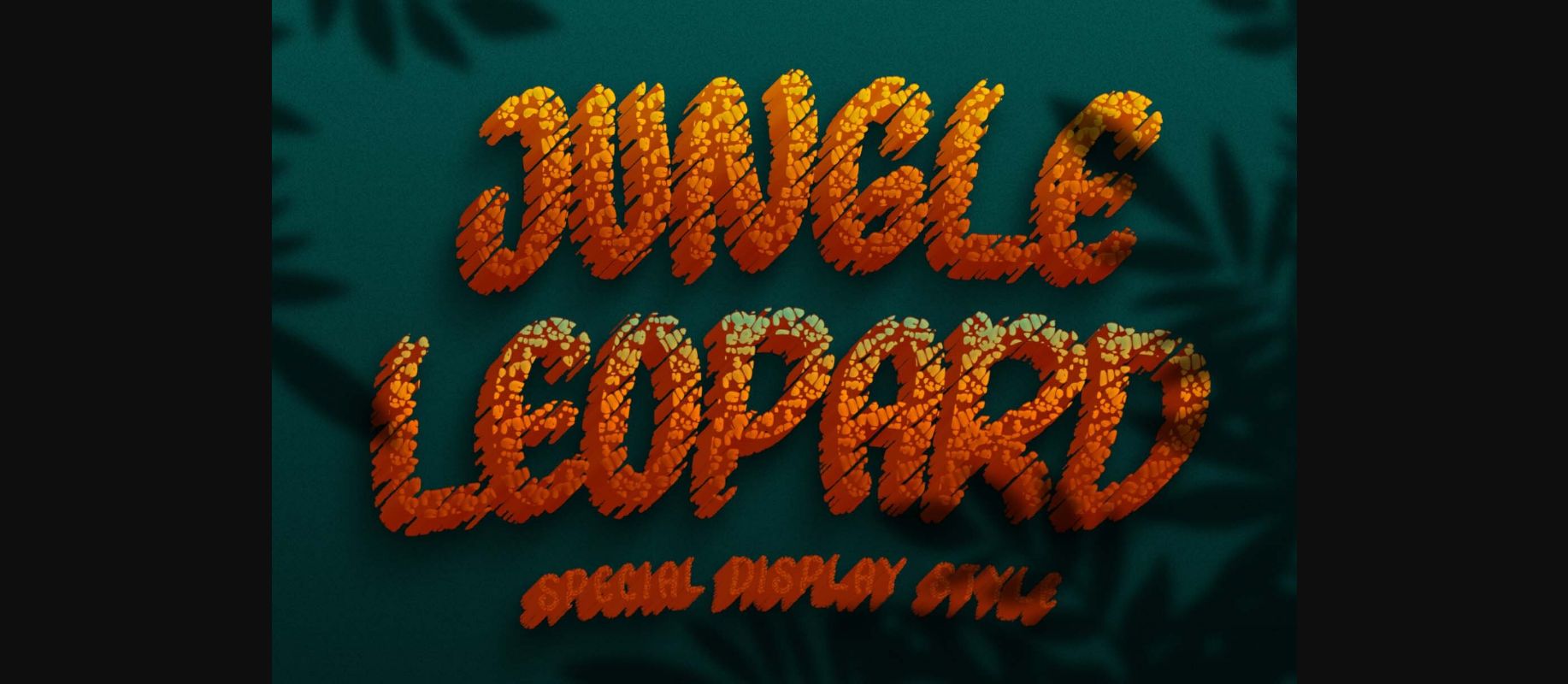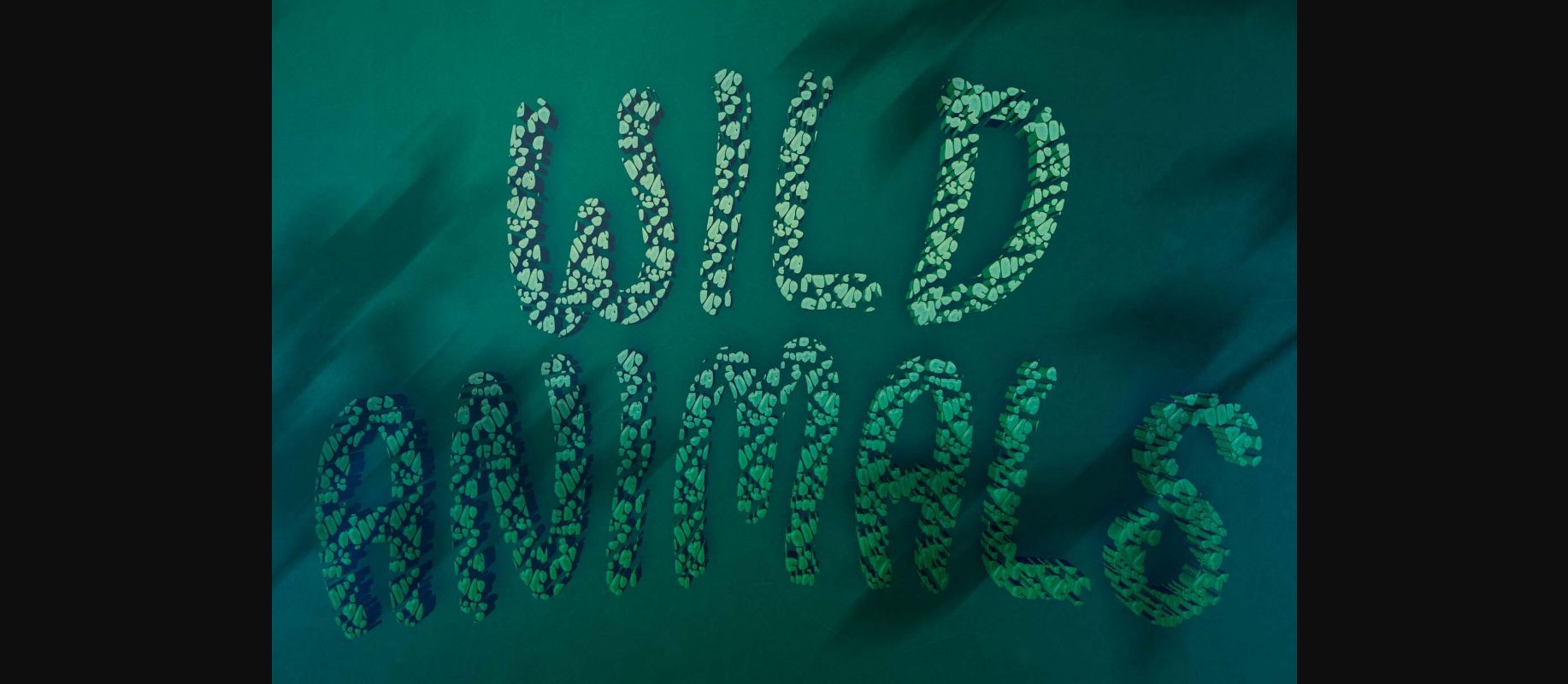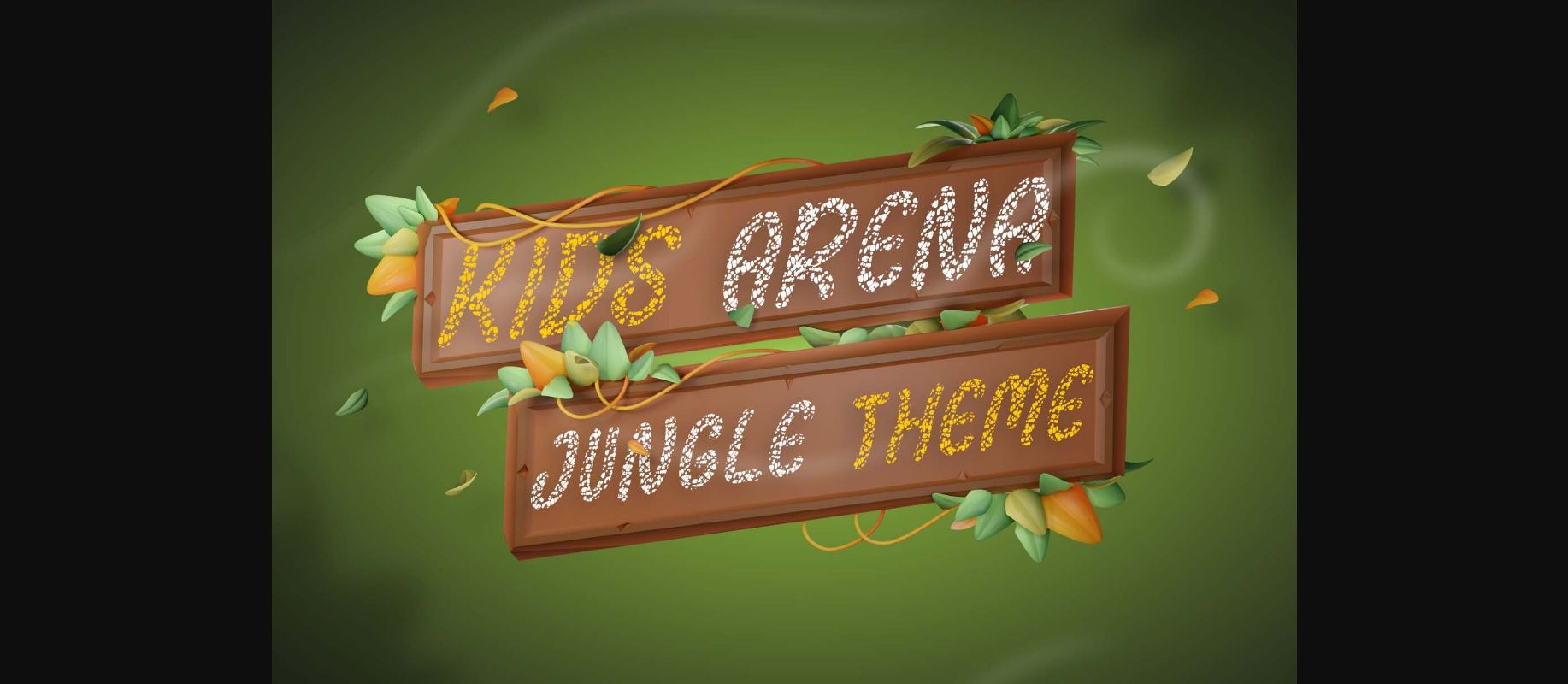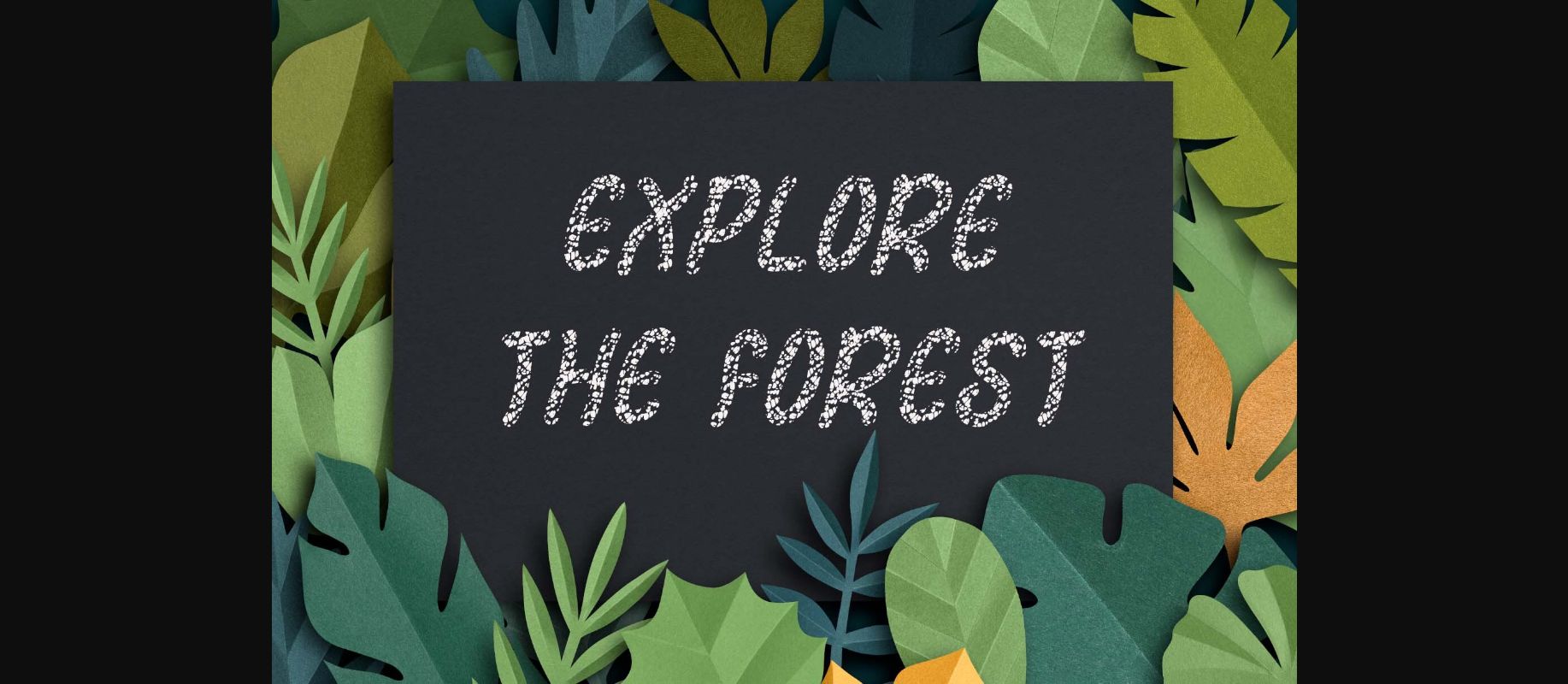
About Jungle Leopard Font
“Jungle Leopard” is a unique display font. This font is equipped with uppercase, lowercase, numerals, punctuation, and multilingual support. Very suitable for comic titles, posters, banners, branding, stickers, Halloween, Christmas, logos, animals, film titles, book titles, children’s book covers, and others.